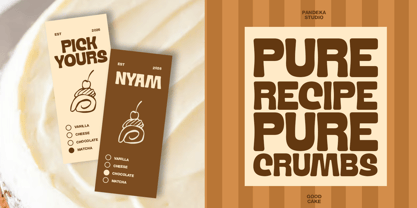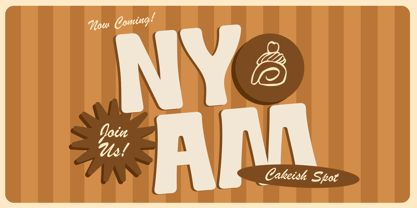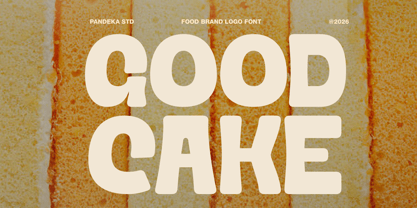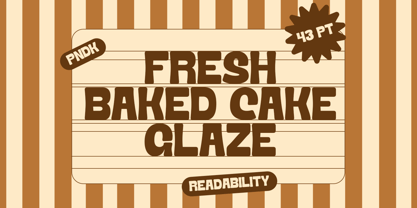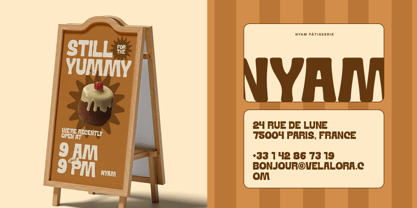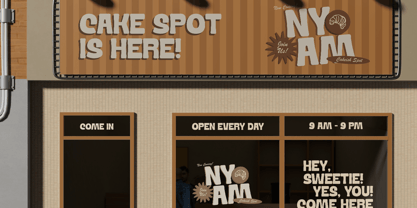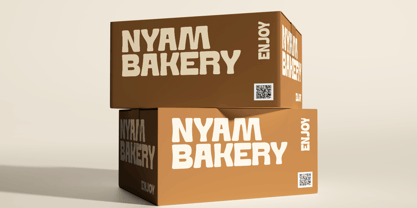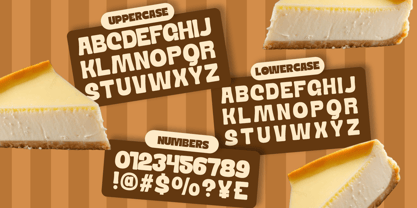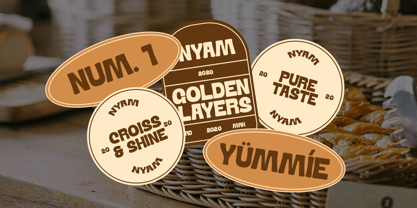
Good Cake
The Good Cake Font Family was designed by Sagara Nararya and published by Pandeka Studio. Good Cake contains 1 styles. More about this family
Good Cake is a playful food brand logo font designed with chunky shapes, soft curves, and a warm retro-inspired aesthetic. Its bold and friendly letterforms create a sweet and eye-catching personality, making it perfect for bakery logos, cake packaging, café branding, dessert menus, snack labels, stickers, and social media promotions. The handcrafted style gives every design a cozy, fun, and memorable appearance.
Designed in a single Regular style, Good Cake works beautifully for food branding, bakery packaging, pastry shop logos, restaurant visuals, product labels, café menus, and cheerful display typography. Whether used for modern dessert brands or playful culinary projects, this font delivers a bold and appetizing character with excellent readability.